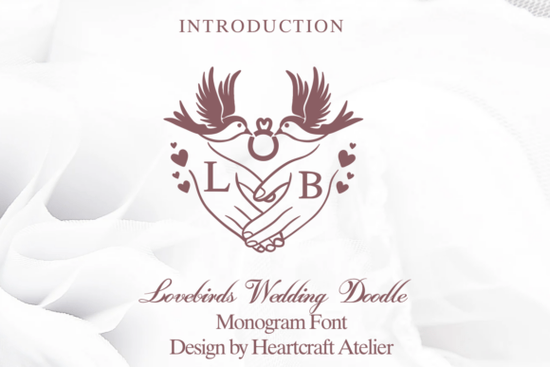
Lovebirds Wedding Doodle is a unique decorative font that adds a whimsical and romantic touch to any design project. Whether you're creating handmade cards, designing social media posts, or working on print-on-demand products, this font offers a fresh and creative way to express your ideas. Its playful style makes it perfect for weddings, love-themed crafts, and personal notes.
If you're looking for a font that stands out while still being easy to read, Lovebirds Wedding Doodle fits the bill. It’s ideal for those who want to add a personal and artistic flair to their work without compromising clarity. The font works well in both digital and physical formats, making it versatile for a wide range of applications.
What Makes Lovebirds Wedding Doodle Stand Out?
One of the key features of Lovebirds Wedding Doodle is its hand-drawn aesthetic. This gives it a warm, organic feel that feels more personal than many standard fonts. It's especially popular among crafters and small business owners who want to create unique, custom designs.
The font is also highly readable, which is important when using it for notes, diaries, or greeting cards. While it has a decorative look, it doesn’t sacrifice legibility. This makes it suitable for both casual and professional use.
How to Use Lovebirds Wedding Doodle in Your Projects
There are countless ways to incorporate Lovebirds Wedding Doodle into your creative work. Here are a few examples:
- Greeting cards: Use it for wedding invitations, thank-you notes, or birthday cards to add a personal touch.
- Social media posts: Add it to graphics for Instagram, Facebook, or Pinterest to make your content more eye-catching.
- Print-on-demand items: Apply it to mugs, t-shirts, or stationery for a unique and appealing product.
- Designs for clients: Offer custom designs using this font for couples planning their wedding or for businesses looking for a romantic theme.
Its flexibility means you can use it in both digital and physical formats, giving you more options for how and where to apply it.
Why Choose Lovebirds Wedding Doodle Over Other Fonts?
While there are many decorative fonts available, Lovebirds Wedding Doodle has a distinct personality that sets it apart. Its soft curves and playful style make it ideal for projects with a romantic or nostalgic vibe. Unlike some fonts that feel too formal or overly stylized, this one strikes a balance between creativity and usability.
It’s also a great choice if you’re looking for something that can be used across multiple platforms. Whether you're designing for web, print, or social media, this font adapts well to different formats without losing its charm.
Tips for Getting the Most Out of Your Font
To make the most of Lovebirds Wedding Doodle, consider the following tips:
- Pair it with complementary fonts: Use it as a headline font and pair it with a simpler, more readable font for body text.
- Experiment with colors: Try different color combinations to see how the font looks in various contexts.
- Test it at different sizes: Make sure it remains legible when used in smaller or larger formats.
- Use it consistently: Apply it to all related designs to maintain a cohesive look across your work.
These steps can help you achieve better results and ensure your designs look polished and professional.
If you're a designer, crafter, or small business owner looking for a creative and versatile font, Lovebirds Wedding Doodle is worth adding to your collection. Its unique style and practical use make it a valuable tool for a variety of projects.
Before you start using it, take some time to explore how it works in different settings. You might find new and exciting ways to incorporate it into your creative process.
Remember, the best way to understand a font’s potential is to try it out. Start experimenting today and see how Lovebirds Wedding Doodle can enhance your designs.